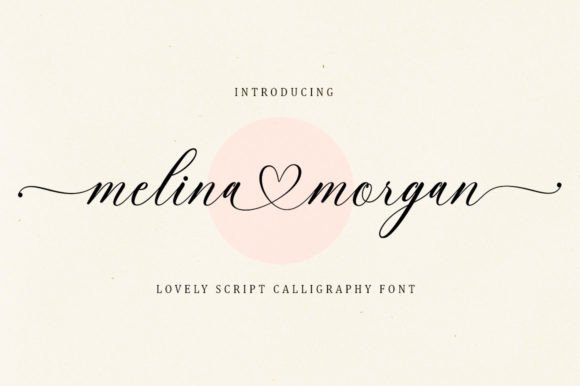
Welcome to the realm of Melina Morgan, a font crafted to capture the essence of romance and elegance. Melina Morgan, born from the creative mind of kartinytype, is a script font that dances across the page, reminiscent of a love letter penned with passion. Its every curve and stroke exudes a timeless charm that will elevate your designs to new heights.
Dive into the world of Melina Morgan and let your imagination soar. This font is not merely a collection of letters; it's an artistic expression, a symphony of shapes that will transform your words into works of art. Whether you're crafting a wedding invitation, designing a logo, or creating social media posts, Melina Morgan will add a touch of sophistication and romance that will leave an unforgettable impression.
Experience the artistry of Melina Morgan and let your designs bloom with beauty. Its flowing lines and graceful curves will add a touch of elegance to your projects, capturing the attention of your audience and leaving them spellbound. From wedding invitations that radiate love to logos that exude professionalism, Melina Morgan is the perfect choice for those who seek to create designs that resonate with emotion and leave a lasting impact.
With Melina Morgan, you'll discover a font that's not just versatile, but transformative. It has the power to elevate your designs, making them stand out from the crowd. Its carefully crafted characters and rich detailing will add depth and dimension to your work, creating a visual experience that captivates and inspires.
Step into the world of Melina Morgan and let your creativity flourish. Whether you're a seasoned designer or just starting your journey, this font will become your trusted companion, guiding you towards design excellence. Unleash the magic of Melina Morgan and watch as your projects blossom into masterpieces that speak to the heart.